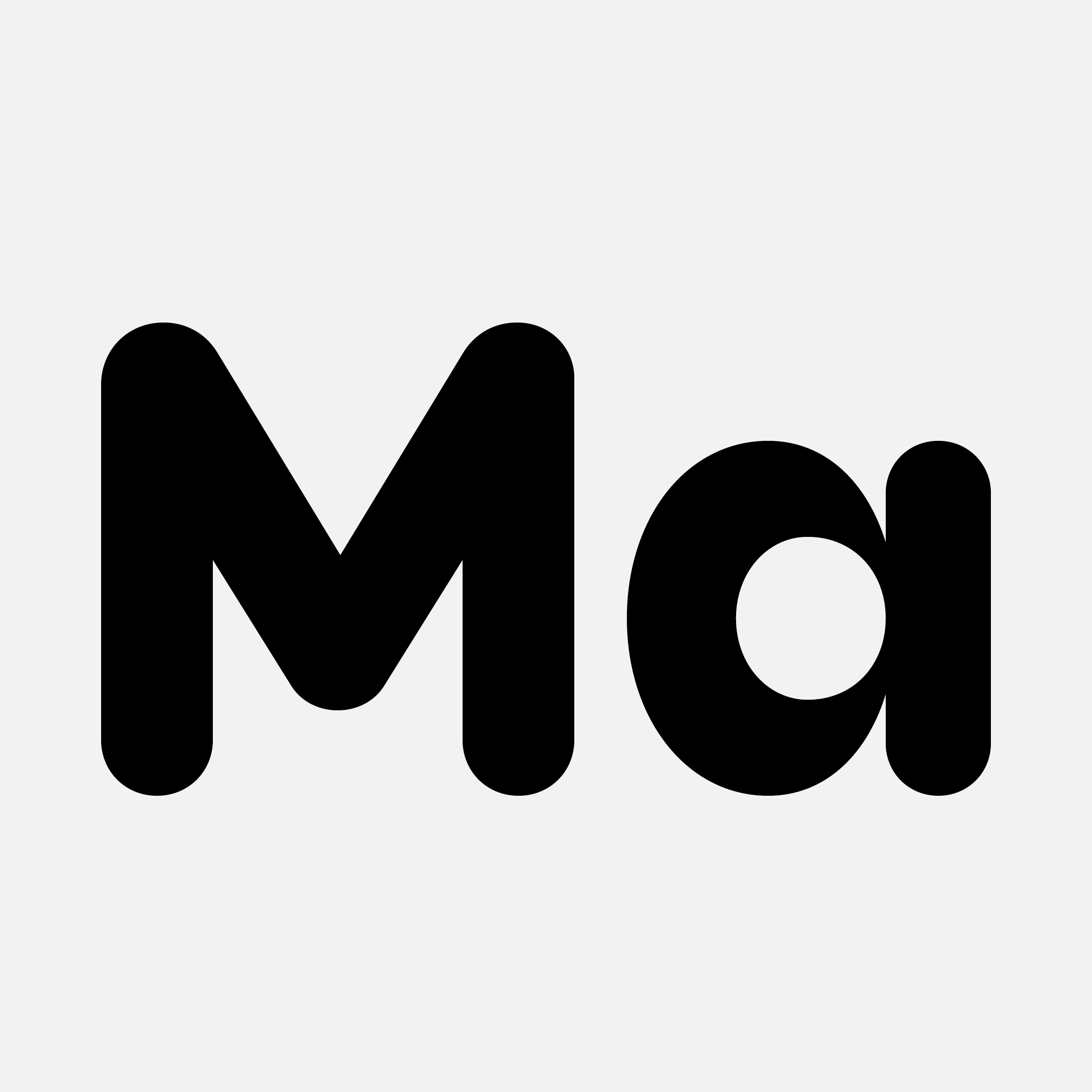
Atyp Kido
Rounded fonts are typographic styles characterized by soft, smoothly curved lines, with their main feature being the rounded terminals of individual strokes. This gives them a friendly, modern, and often playful character. Thanks to their simplicity and flowing curves, they are highly legible, especially in digital environments, which is why they are often used in user interfaces, mobile applications, and web design.
From a psychological perspective, rounded fonts feel approachable, open, and informal. They evoke a sense of safety, gentleness, and human warmth, distinguishing them from sharp-edged or more technical-looking typefaces. For this reason, they are frequently used in communication aimed at a broad audience when the goal is to appear accessible and user-friendly.
Atyp Kido is based on the proven Atyp typeface and features an extensive glyph set and broad language support.